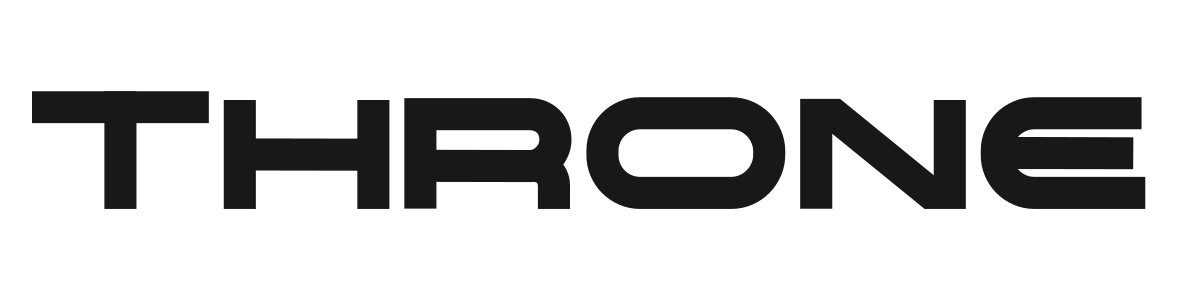
Throne
by InspiraType
Throne is a bold rounded display sans drawn by hand and inspired by classic poster lettering. Wide proportions and smooth rounded terminals give it a hefty, confident presence without feeling aggressive. Strong at large sizes for logotypes, posters, apparel labels, and editorial headlines.